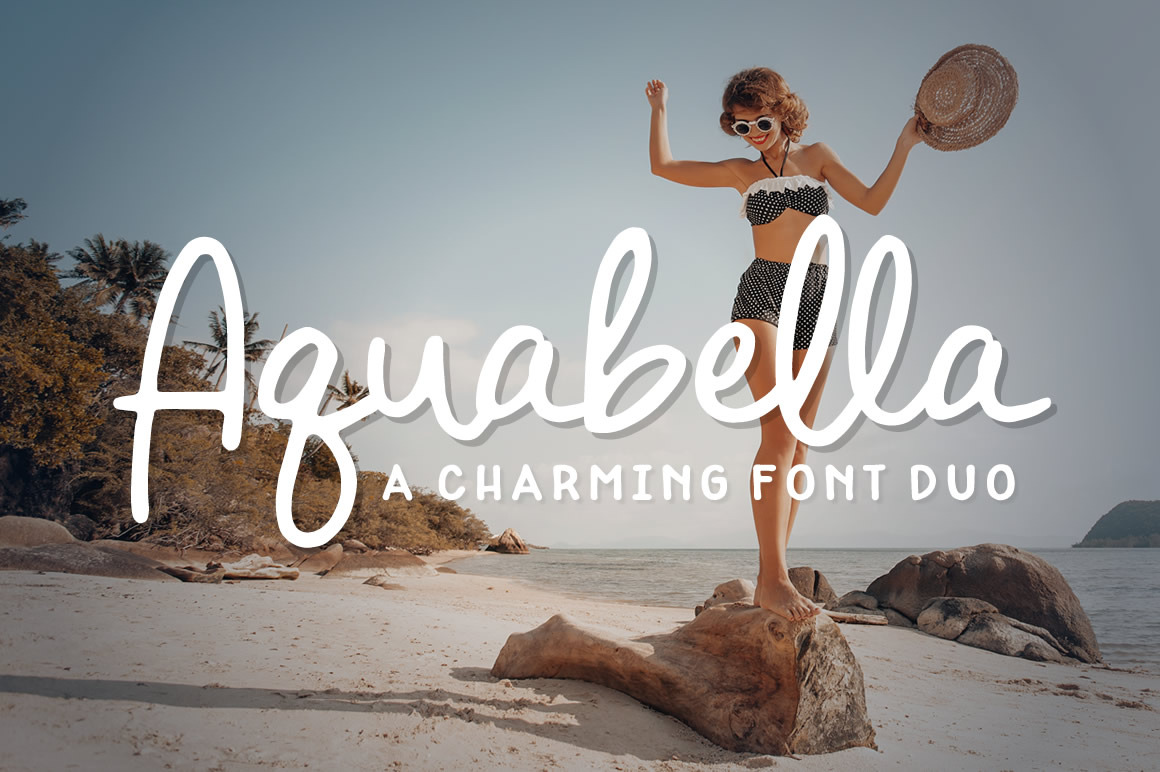
Aquabella Font Duo
Aquabella is a charming font duo that is ready to add a touch of fun to any project: birth announcements, shower and wedding invitations, greeting cards, posters, calendars, and so much more!.
Aquabella Sans includes uppercase letters in regular and bold weights (bold variation is accessed using lowercase letters on the keyboard).
Also included is a set of alternate uppercase and lowercase characters that you can mix and match with the original Aquabella font to help create precisely the look you want.